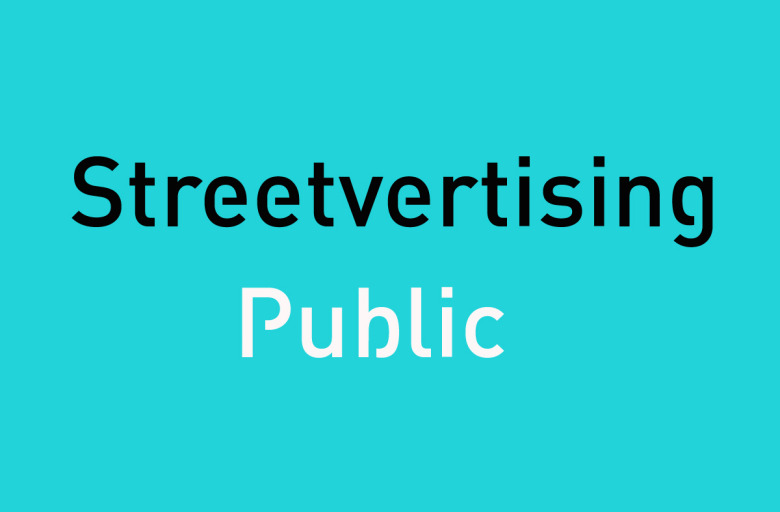
Streetvertising Public is a high quality Sans Serif font that is designed by Cleanvertising.com and is available for free download personal & commercial use. The free version provides all uppercase and lowercase letters and a few special characters too.